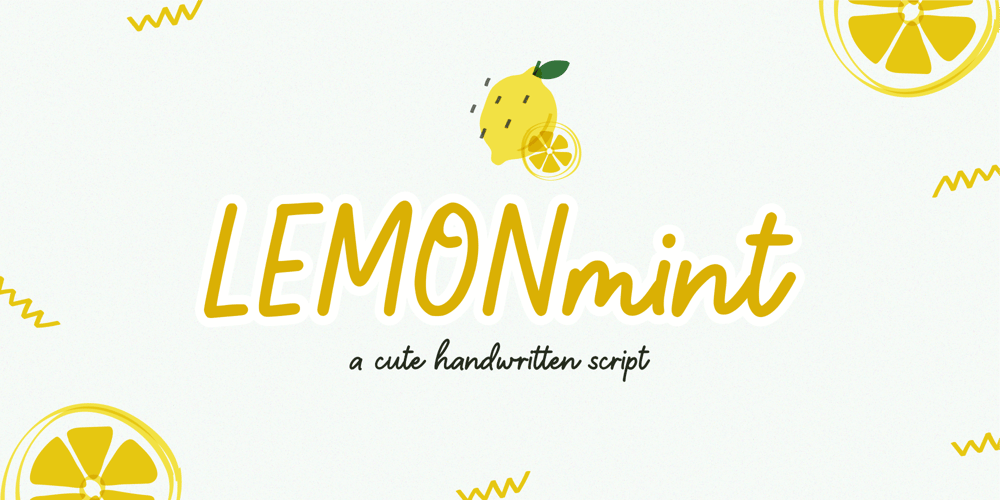
Lemonmint
Lemonmint font
Lemonmint Font Family was designed by Fachrizal Yusuf and published by Allouse Studio. Lemonmint contains 1 styles and family package options. Proudly Presenting, Lemonmint A Cute Handwriten Script Font.Lemonmint is perfect for any titles, logo, product packaging, branding project, megazine, social media, wedding, or just used to express words above the background.Lemonmint also come with Multi-Lingual Support.Enjoy the font, feel free to comment or feedback, send me PM or email. Thank You!